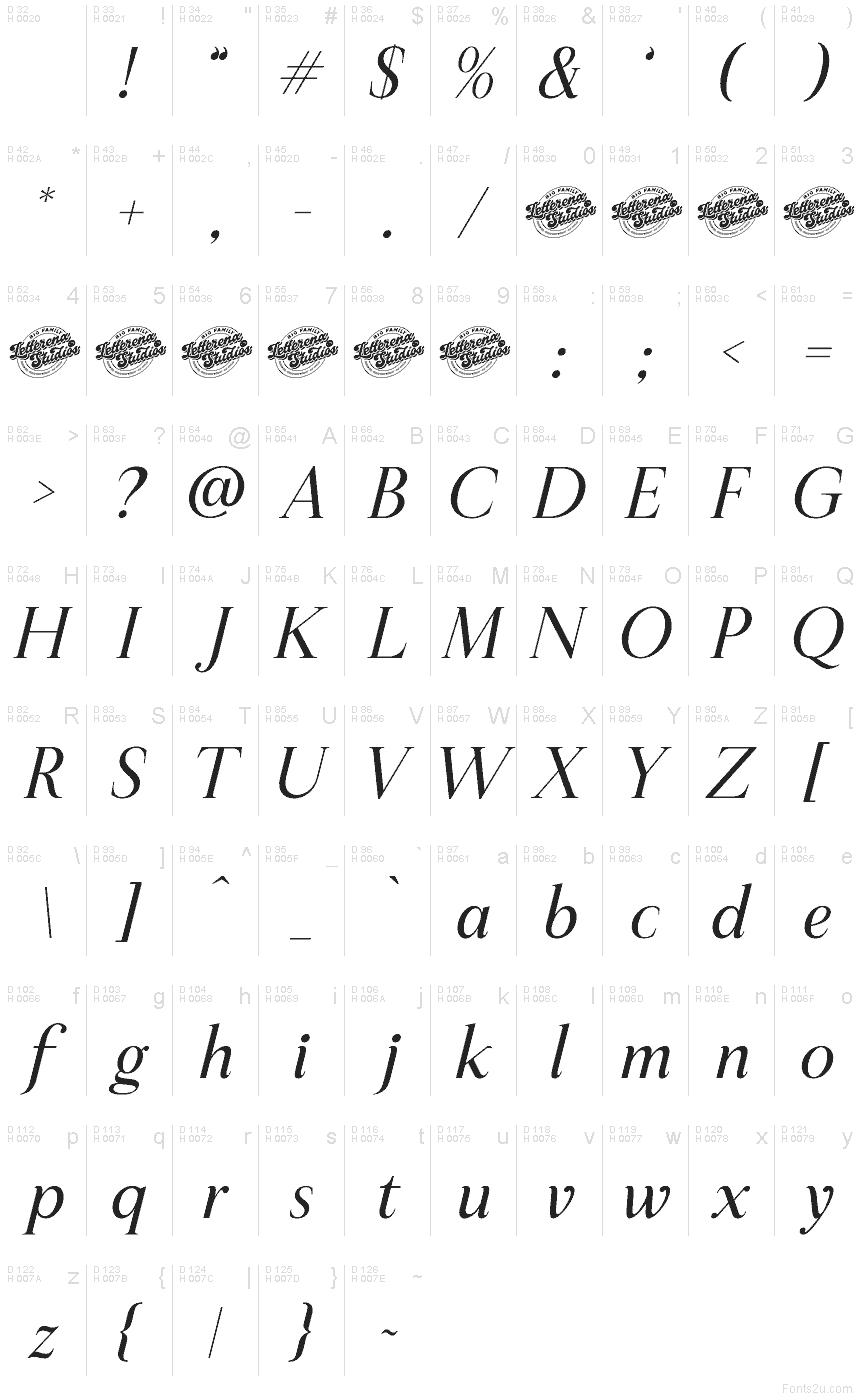
Sheftira DEMO VERSION Italic
Sheftira Italic font by Letterena Studios is a free elegant serif typeface that glides across the page with a calligraphic, almost inky motion. The letters lean with confident slant, pairing razor-fine strokes with fuller, velvety curves, so text feels both refined and expressive. It’s the kind of italic that instantly adds a sense of tailored luxury without looking stiff or old-fashioned.
Using Sheftira Italic, your headlines and short phrases gain a graceful, editorial flair that suits fashion branding, wedding invitations, beauty packaging, logos, book covers, and romantic quote graphics. The spacing feels airy yet controlled, so words breathe even at larger sizes. This free font pairs beautifully with a clean sans serif for body copy—set Sheftira Italic big and generous for titles, and let a simple sans handle the supporting text.